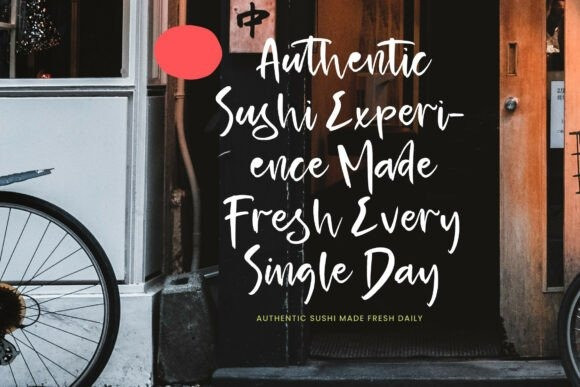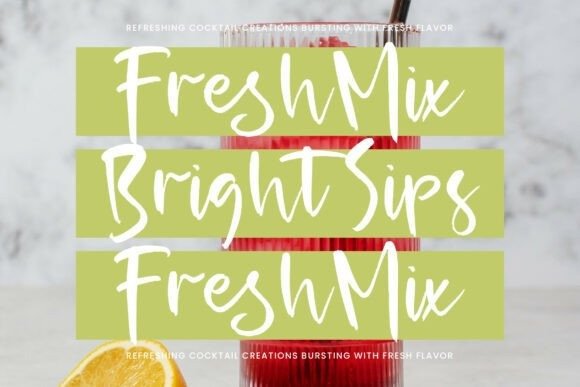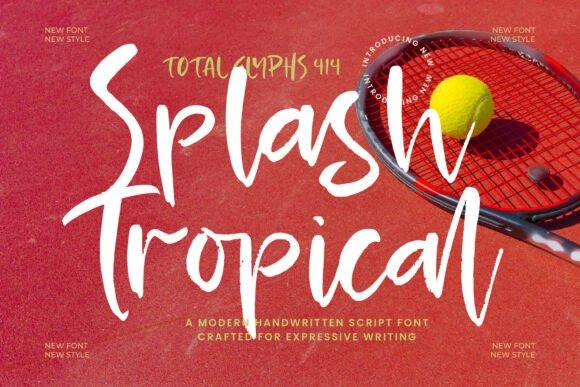
Splash Tropical Font
Splash Tropical Font – the epitome of modern, handcrafted script font elegance designed by the acclaimed Operatype. A versatile choice for an array of creative projects, this font stands out in logo creation, brand design, home decor concepts, packaging design, and so much more.
Adorn your favorite quote, poster, shopping bag, t-shirt, or book cover with Splash Tropical, adding a touch of sophistication and charm. Its intricate details make it an ideal choice for business cards, invitation cards, greeting cards, labels, and photography watermarks. It’s also perfect for distinguishing your special events or any projects that demand an element of luxury.
Featuring ligatures, alternates, and swashes, this font goes beyond the ordinary, allowing for precision and creativity.